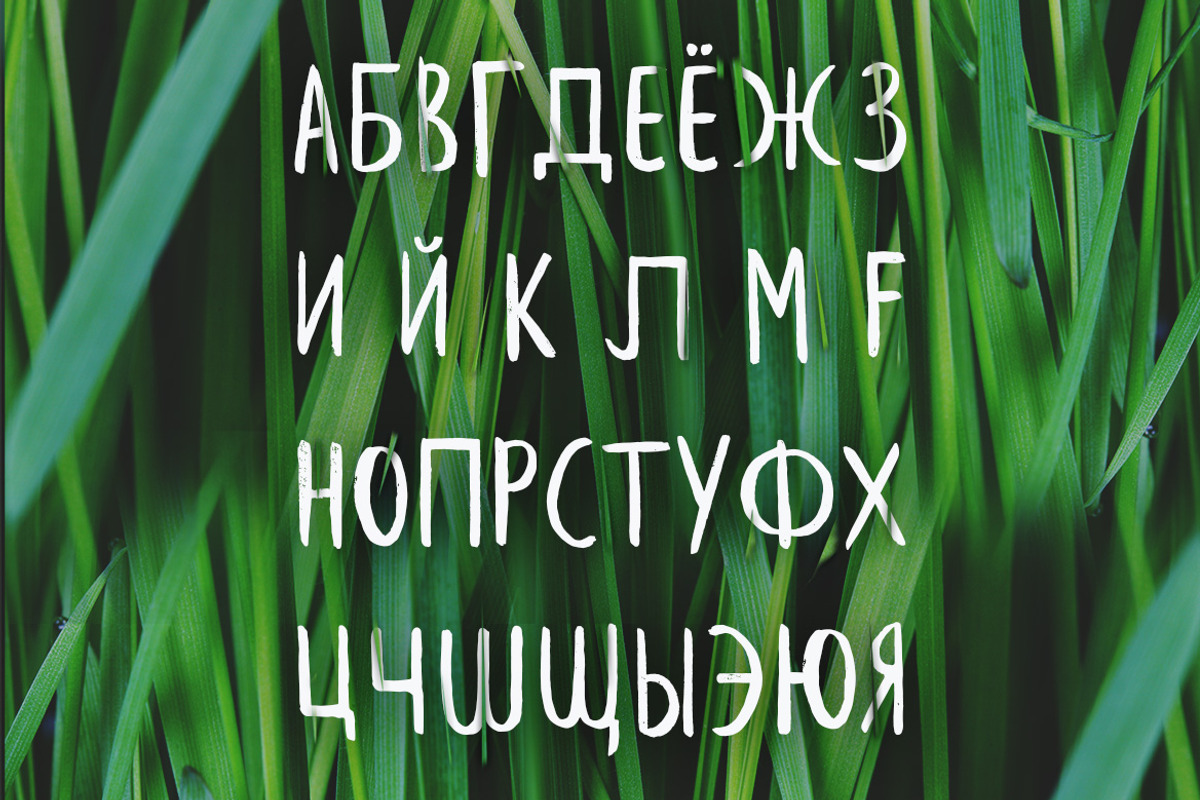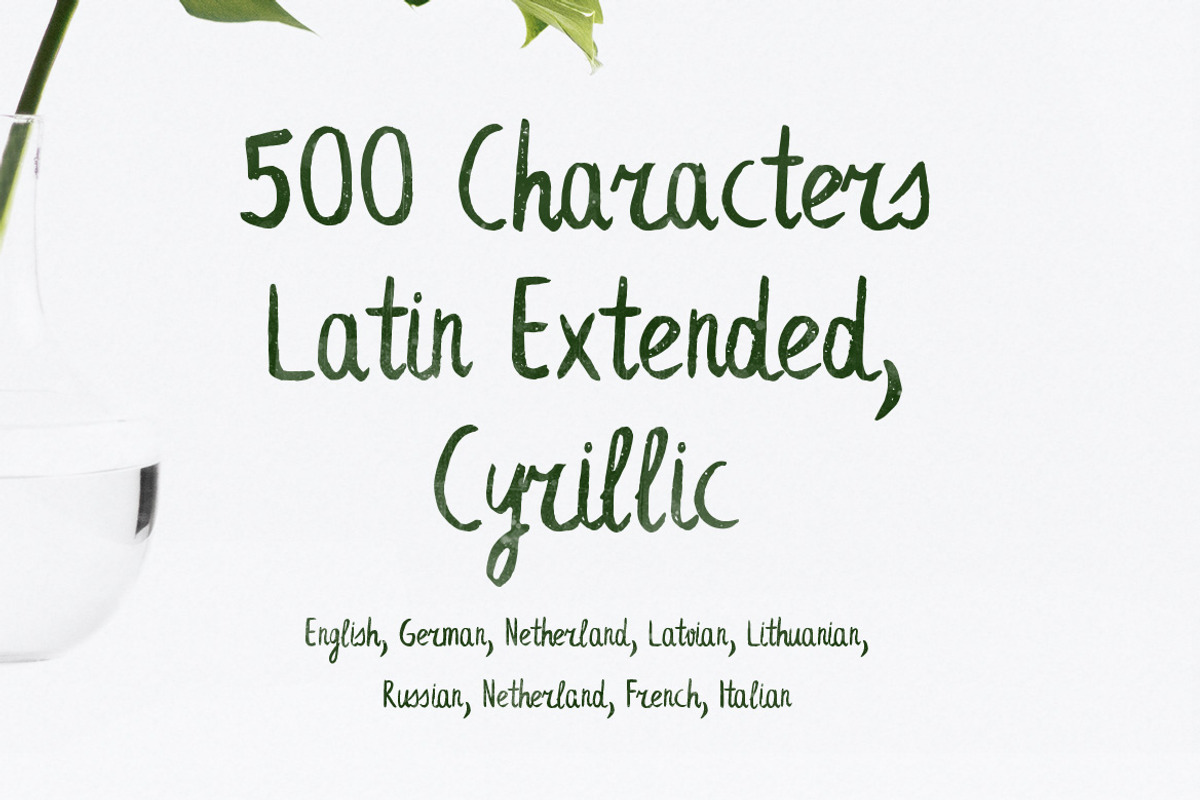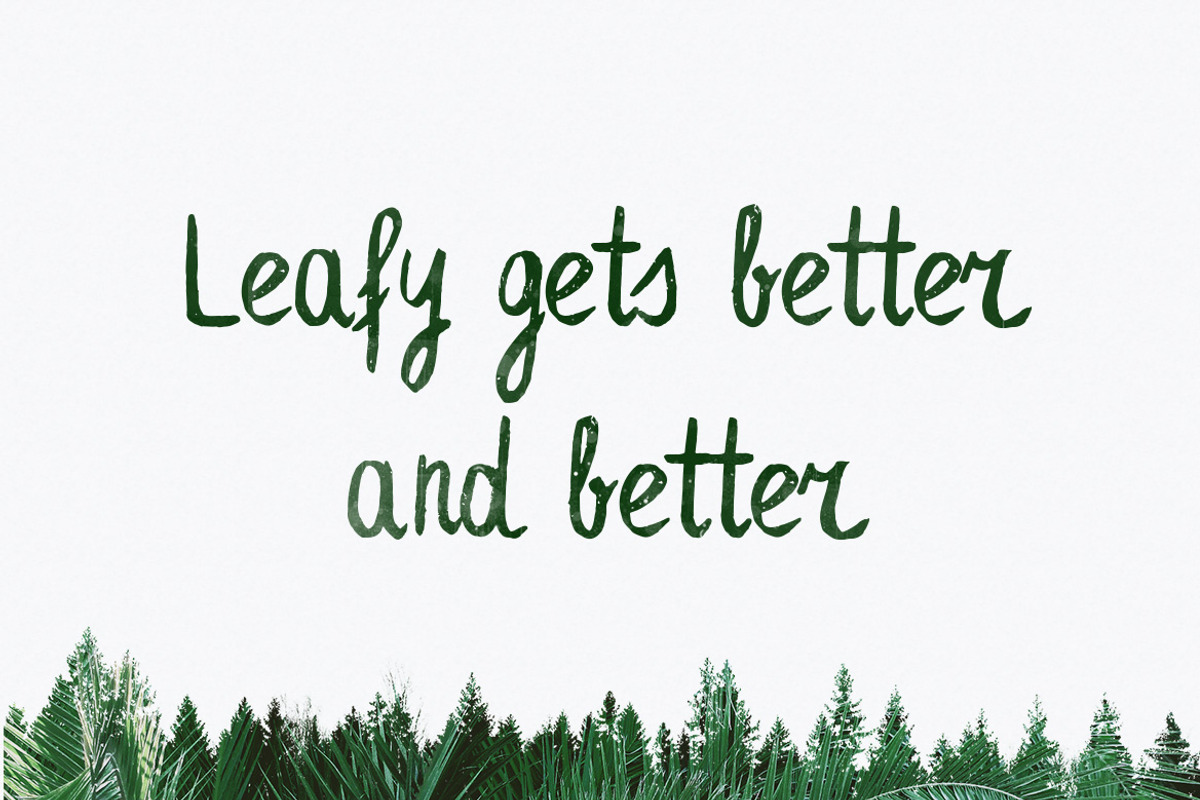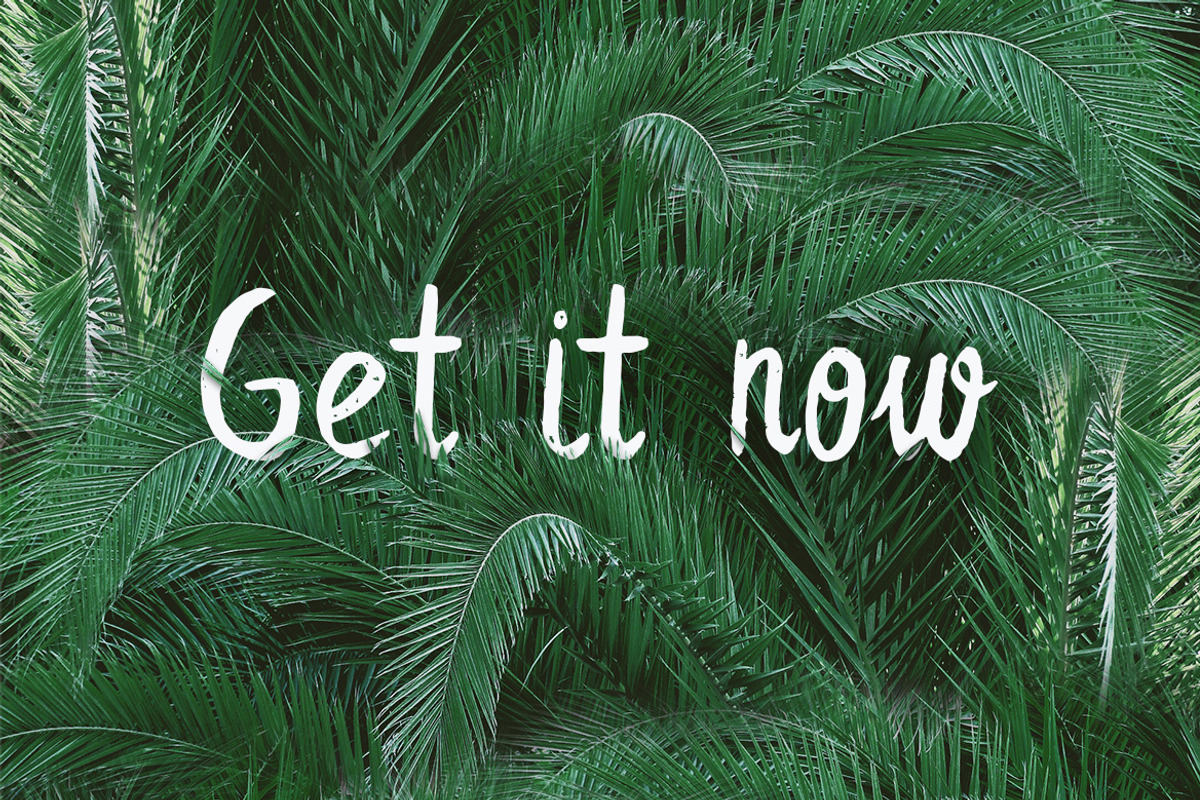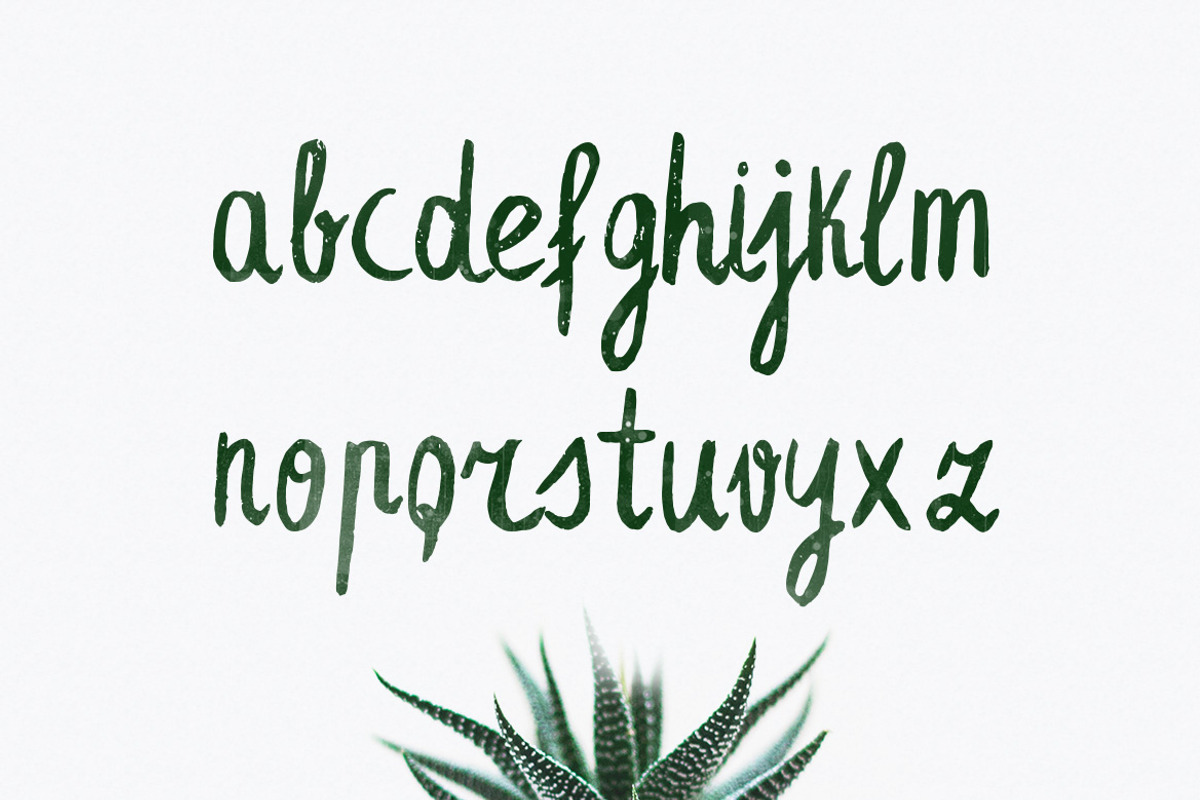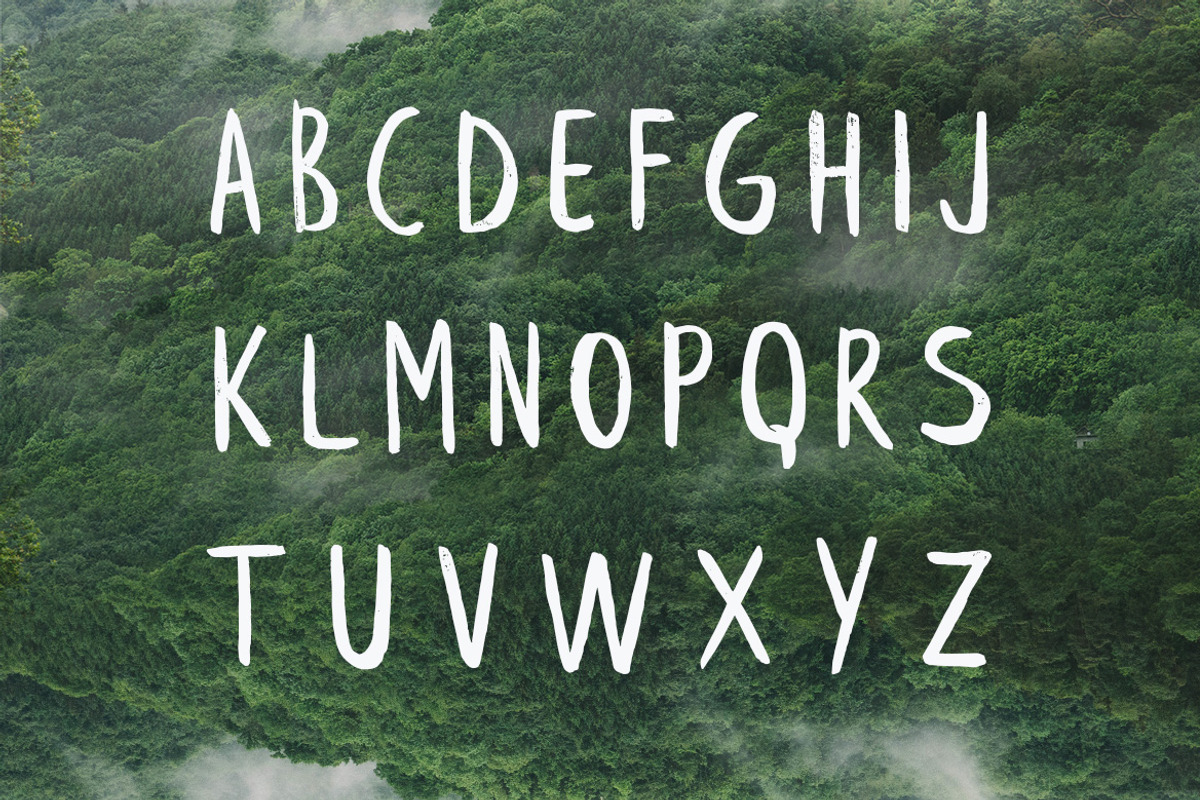
Leafy Extended Brush Font
Leafy Extended Brush Font by Wild Ones is a font selected for branding, posters, packaging, typography.
Why Leafy Extended Brush Font is worth a look
Leafy Extended Brush Font by Wild Ones fits naturally into Branding, posters, packaging, typography.